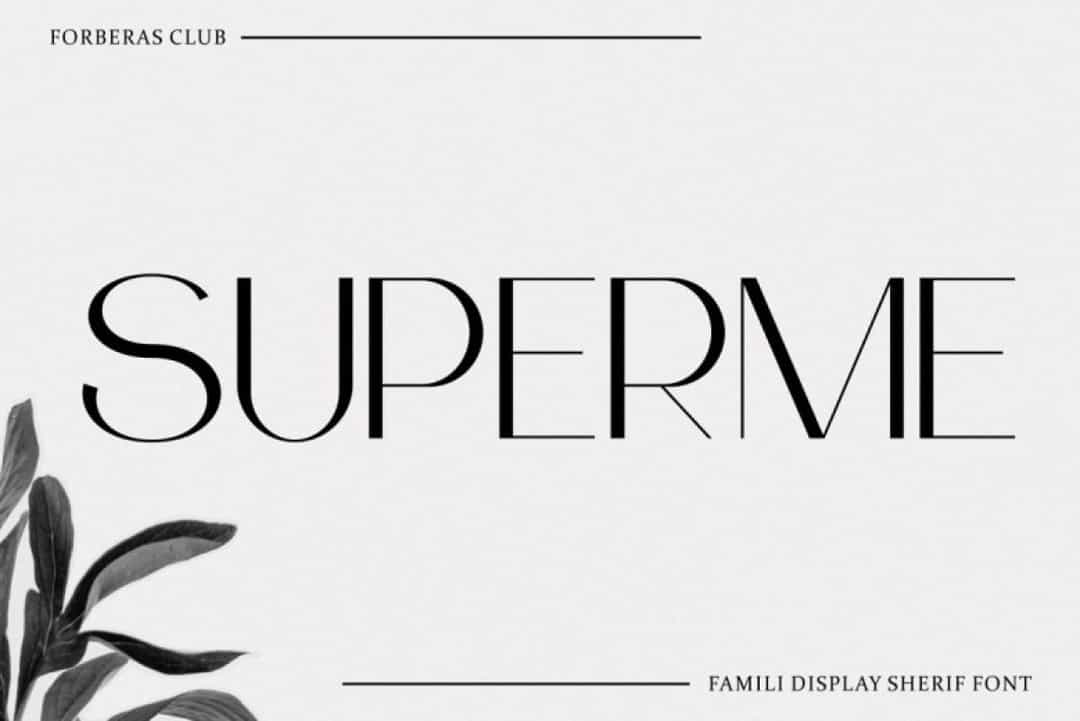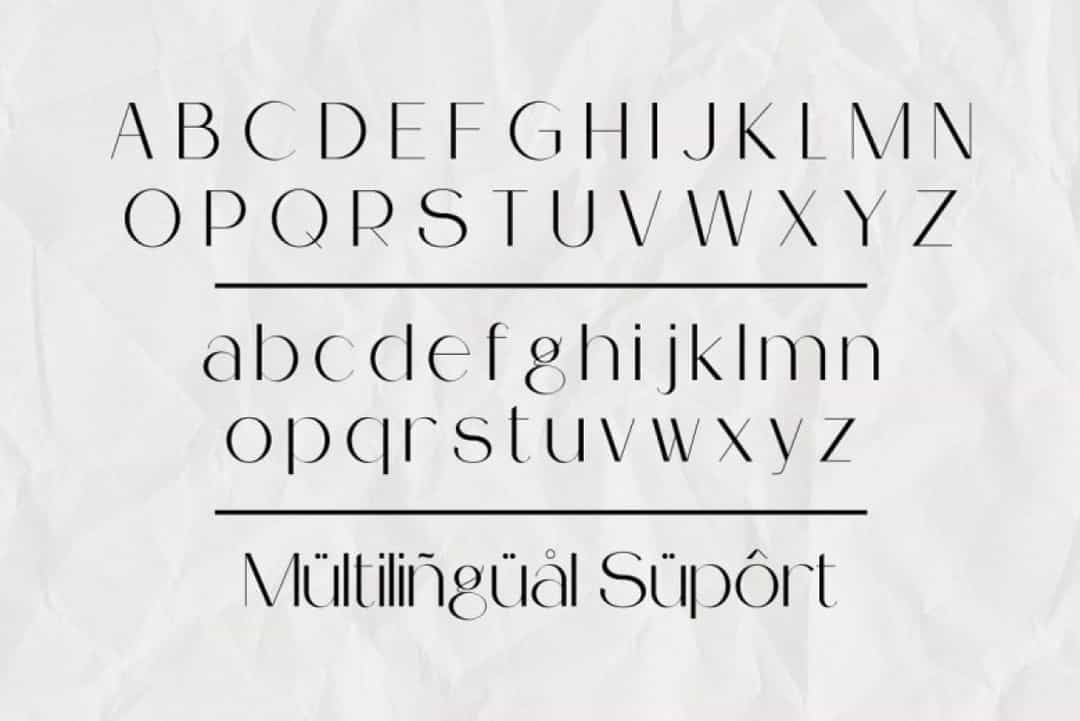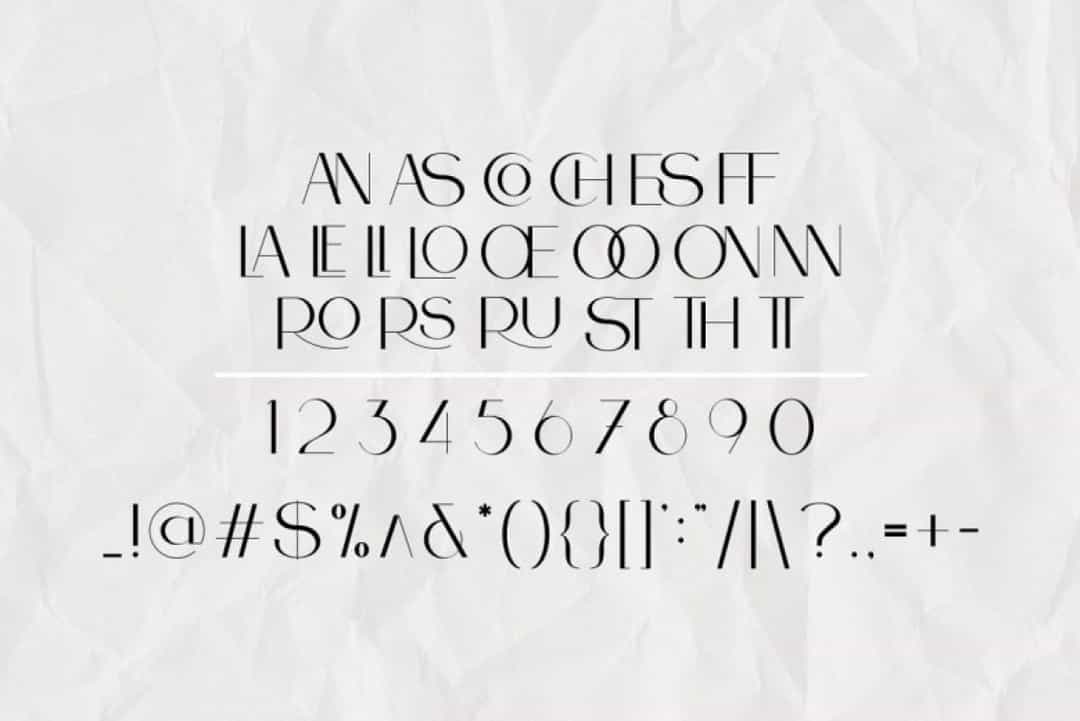
Superme is a stylish and contemporary sans serif font. Ideal for wedding cards, logos, branding business cards posters quotes book covers Cricut designs books and much more!